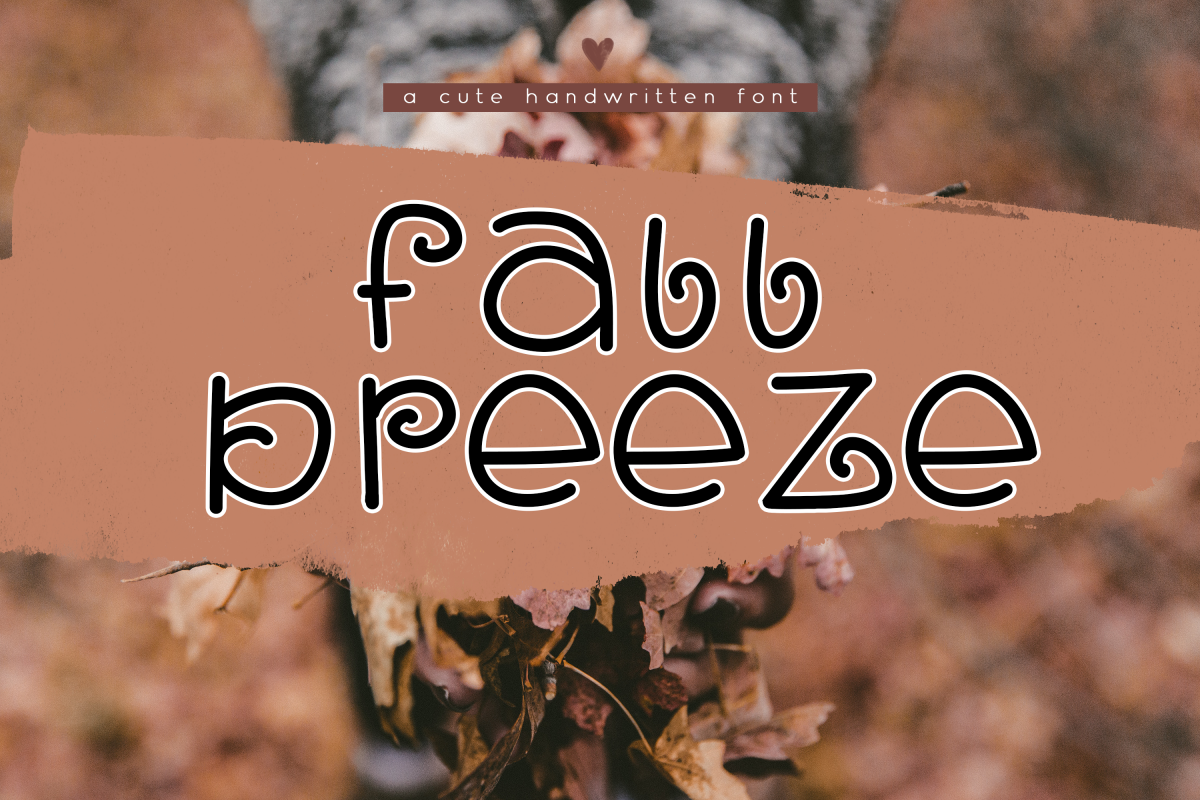
Fall Breeze - A Fun Handwritten Font
Fall Breeze is a fun font with a cute design.
This font is perfect for quotes, headings, blogs, logos, invitations and more!